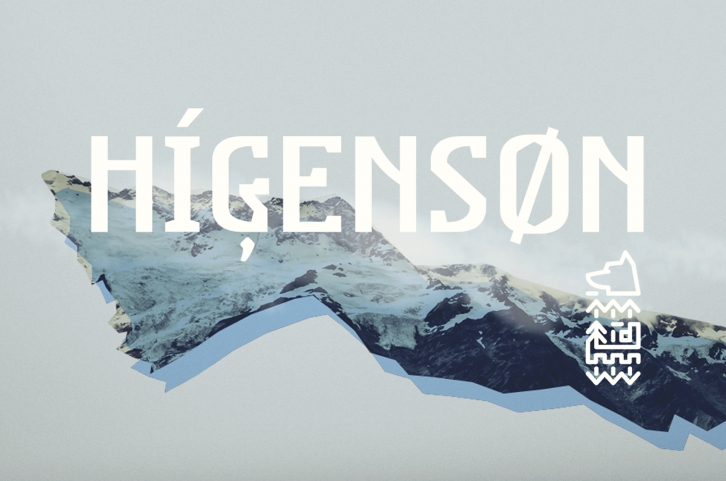
Higenson FONT Download
Higenson is a gorgeous font that was realeased on April 6, 2017. The font can be used in many style contexts and design environments. Perfect for invitations, magazines, websites, logos, and more! It was designed by Newface and the file size is 21.75 MB. Thanks for checking out this font!